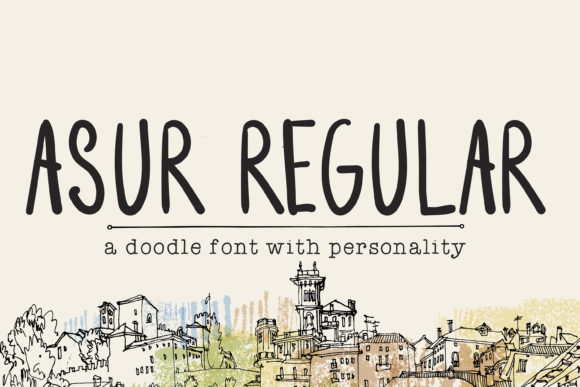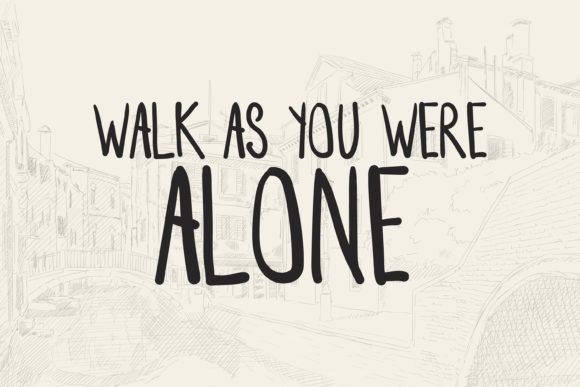
HomeSans Serif FontsAsur Regular Font Sans Serif Fonts Asur Regular Font FacebookXPinterestWhatsApp Asur Regular Font 1 of 3 About Asur Regular Font Asur Regular is a cute and lovely sans serif font with an incredibly friendly feel. Use this gorgeous and unique font to bring any DIY project to life! DOWNLOAD NOW People also explored Compasse Handraw Font Rafi Flower Monogram Font Basic Gaming Font Sallyh Alotah Font Cadallis Font Charganolton Font Elizabella Font Caterina Font 370 0 TagsAsur Regular Font Previous articleLockey FontNext articleClaria Font LEAVE A REPLY Cancel reply Comment: Please enter your comment! Name:* Please enter your name here Email:* You have entered an incorrect email address! Please enter your email address here Website: Save my name, email, and website in this browser for the next time I comment. Personal Use Free Better Together Duo Personal Use Free Read more about this font Dream Personal Use Free Read more about this font Squealer Personal Use Free Read more about this font Urkelian Personal Use Free Read more about this font BLOG How to Install and Use Fonts on Windows, macOS, and Web Projects How to Install and Use Fonts on Windows, macOS, and Web Projects Fonts are a crucial part of design and branding. Whether you’re designing a... Best Fonts for YouTube Videos: Make Your Thumbnails Stand Out Free vs Paid Fonts: Why Investing in Premium Fonts Is Worth It Using Fonts in Digital Marketing: Tips to Strengthen Your Brand Identity